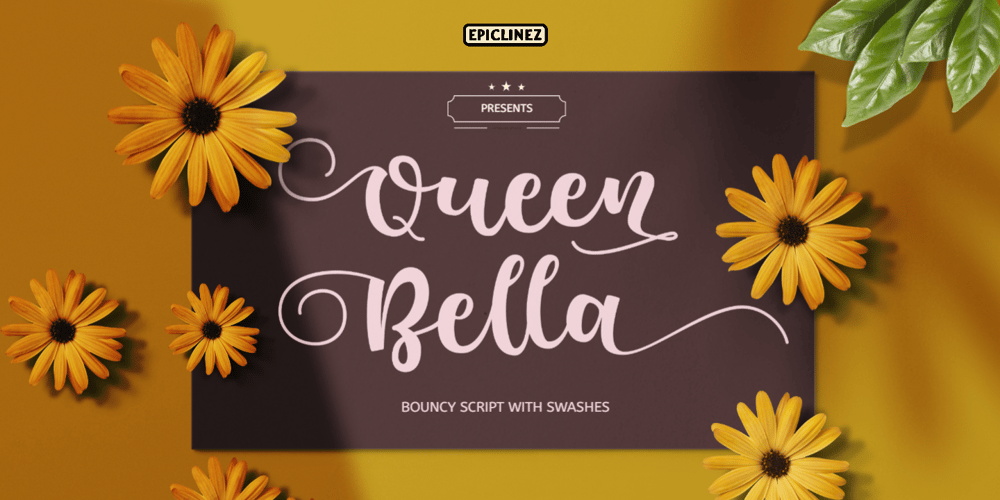
Queen Bella
Queen Bella font
Queen Bella Font Family was designed by Aldy Sidik and published by Epiclinez. Queen Bella contains 1 styles and family package options. Queen Bella is a bold and bouncy handwritten script font. Use it for any design project that requires a personalized appearance!